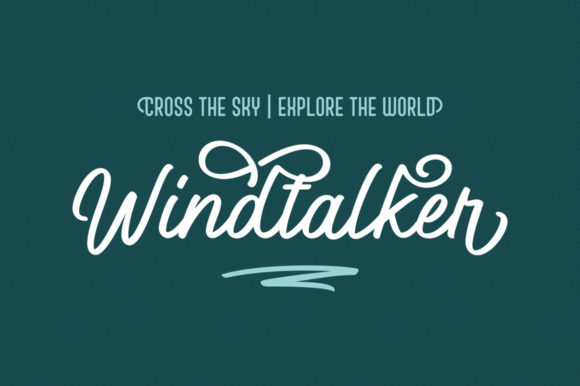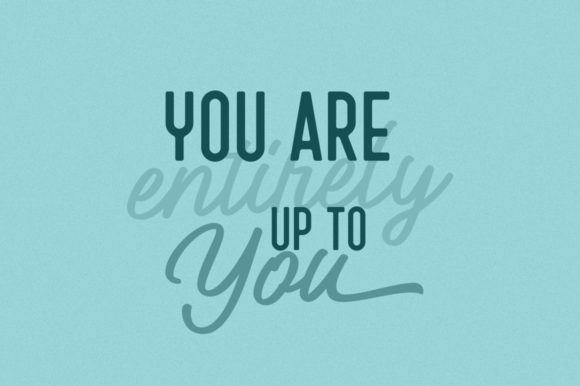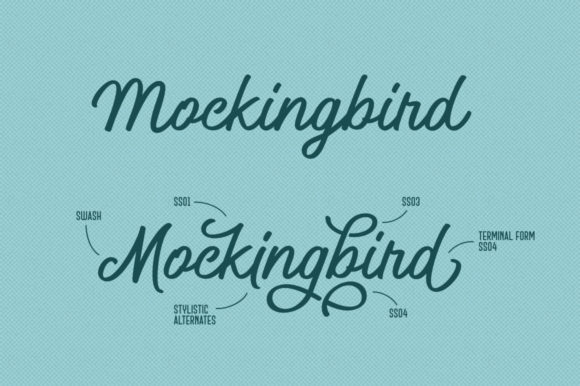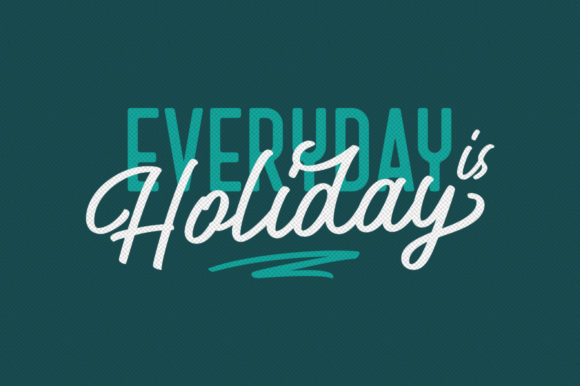
Windtalker Font
About Windtalker Font
The Windtalker is a casual script font that is based on a scratch of calligraphy brush. It has a versatile look which can be used for greeting cards, invitations, logos, posters, quotes, packaging, and much more!